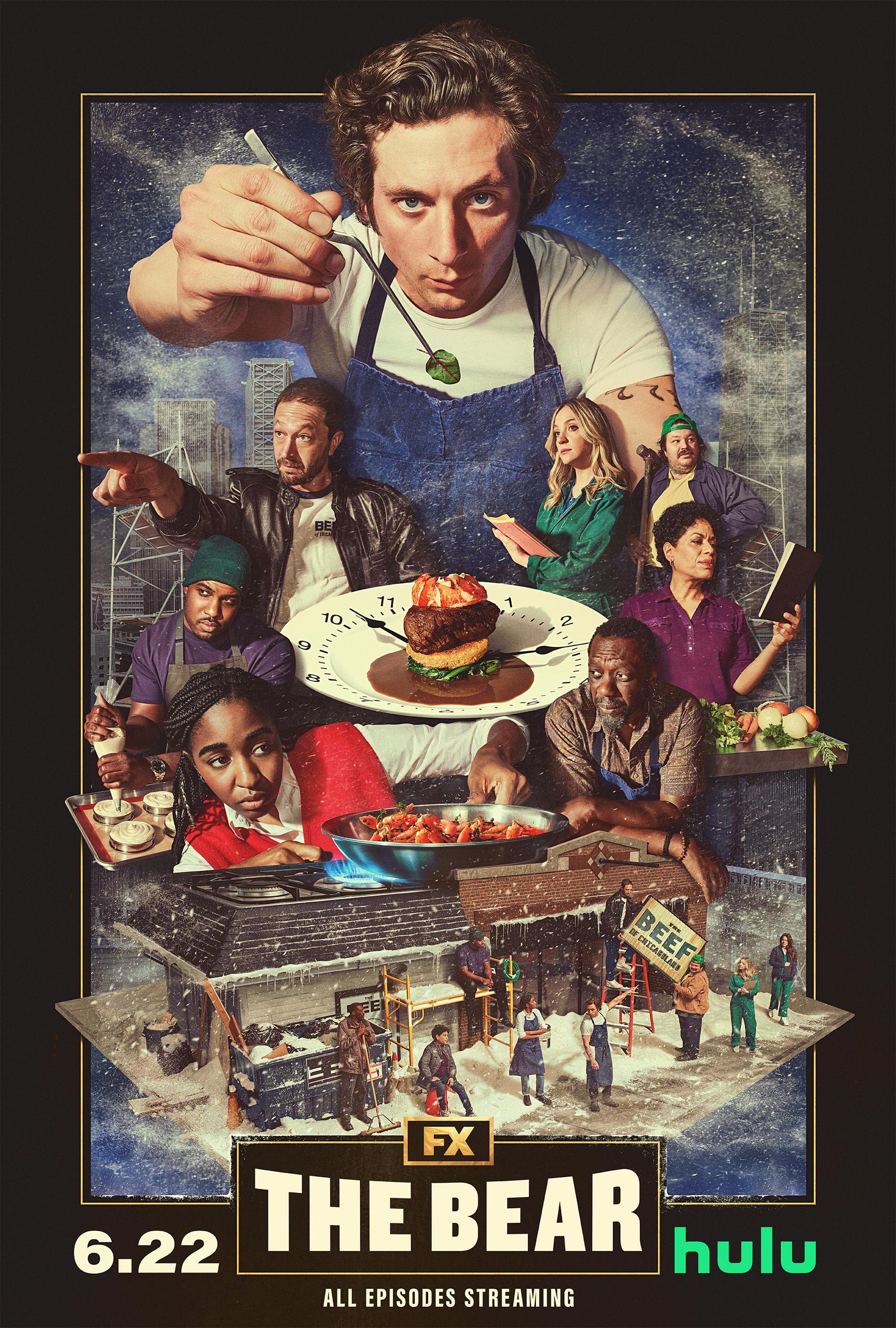
The Bear Font
ComedyThe Bear is an American comedy-drama TV series that premiered on Hulu on June 23, 2022. It follows a young chef who returns to his hometown to manage his deceased brother’s sandwich shop.
The Bear series font looks similar to a bent version of Knockout No. 90 Ultimate Welterweight.